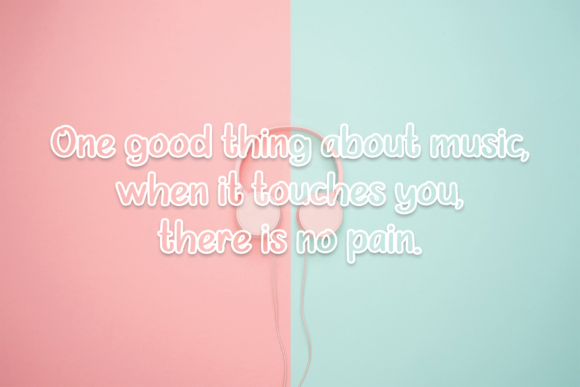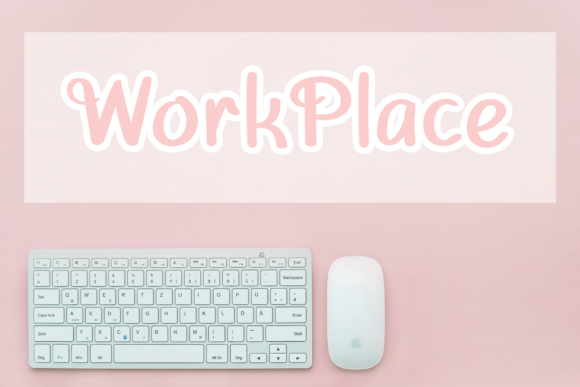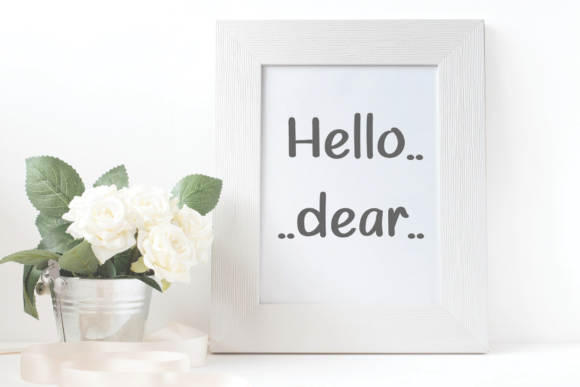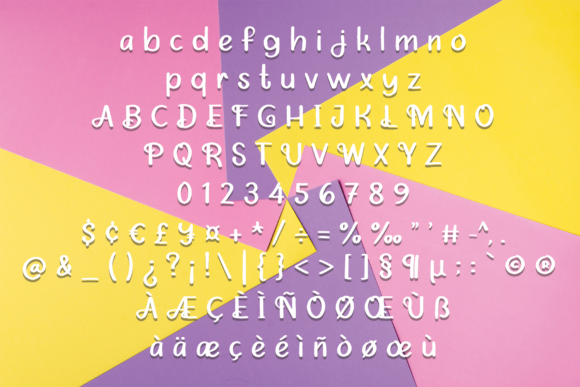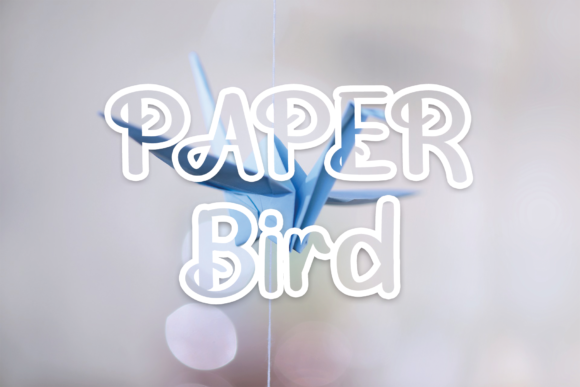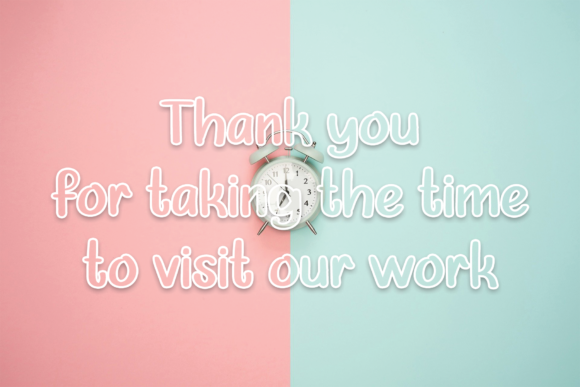
Minimalist Font
About Minimalist Font
Minimalist is a lovely, neat, and well-balanced handwritten font. Whatever the topic, this font will be a wonderful asset to your font library, as it has the potential to enhance any creation!